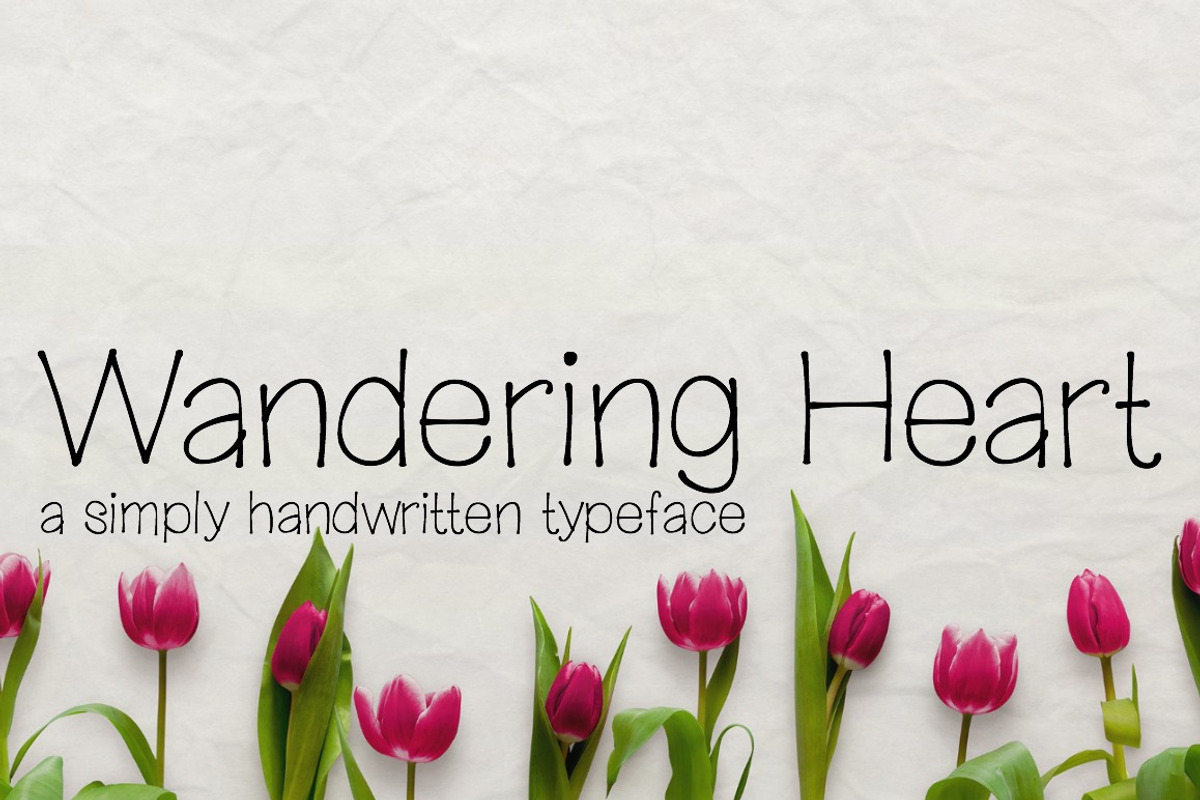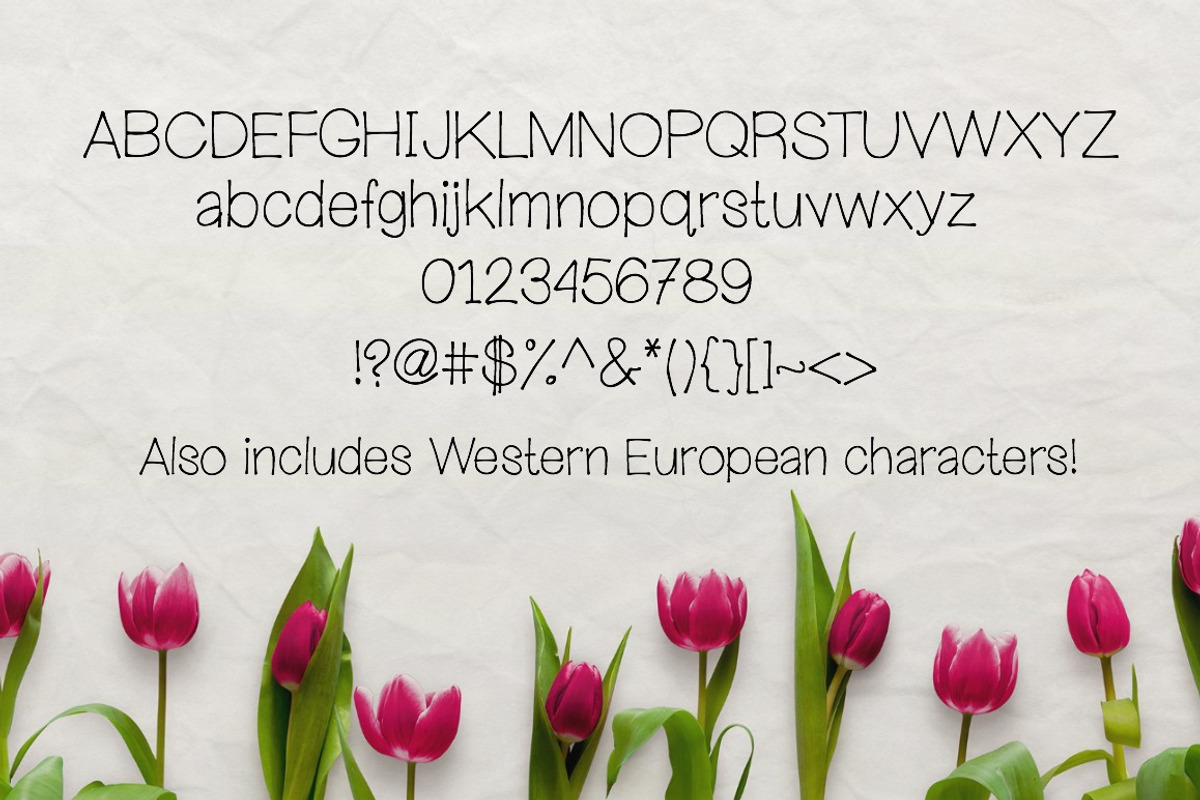
Wandering Heart- Handwritten Font
This font is the re-release of "My Wandering Heart" that now includes Latin extended characters to support most European languages! it is a basic handwritten sans serif with the authentic look of ink pen writing.
- This font is the re-release of "My Wandering Heart" that now includes Latin extended characters to support most European languages!
Wandering Heart- Handwritten Font by Sabrina Schleiger Design fits naturally into Branding, posters, packaging, typography.